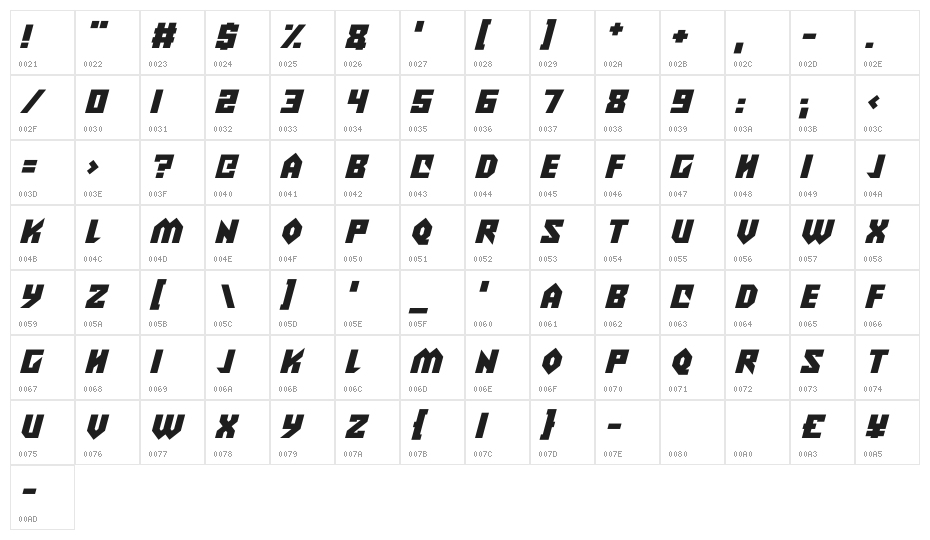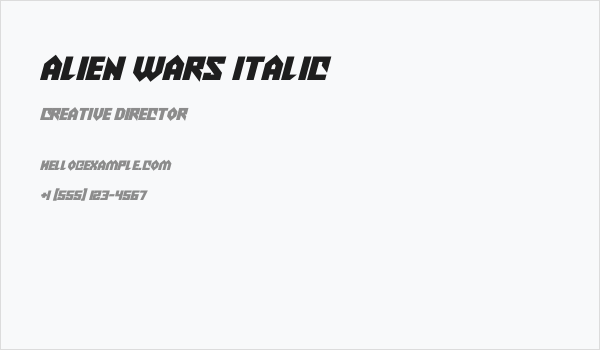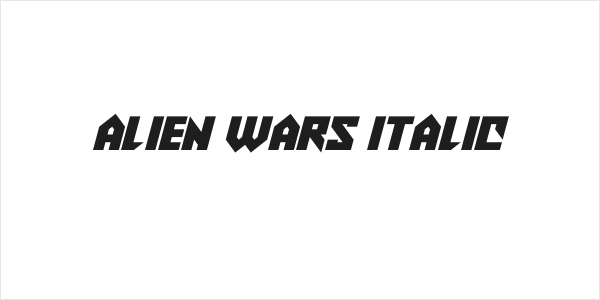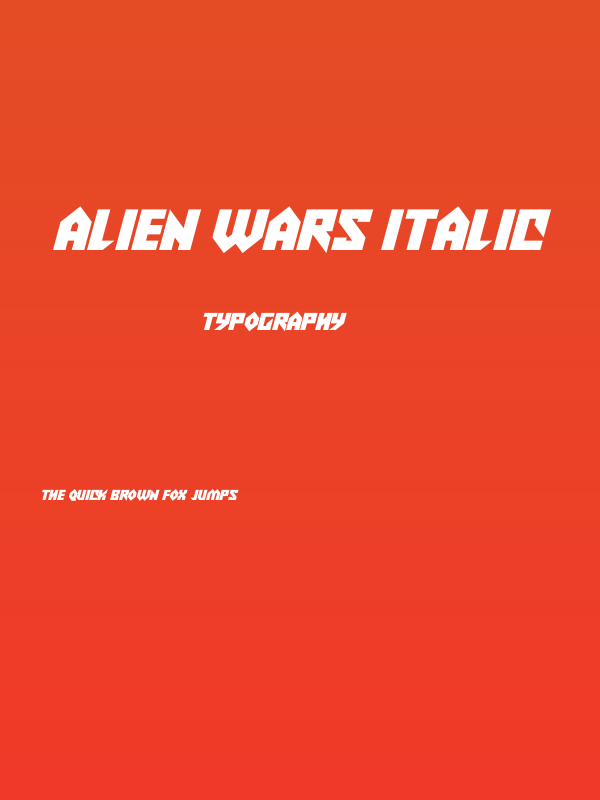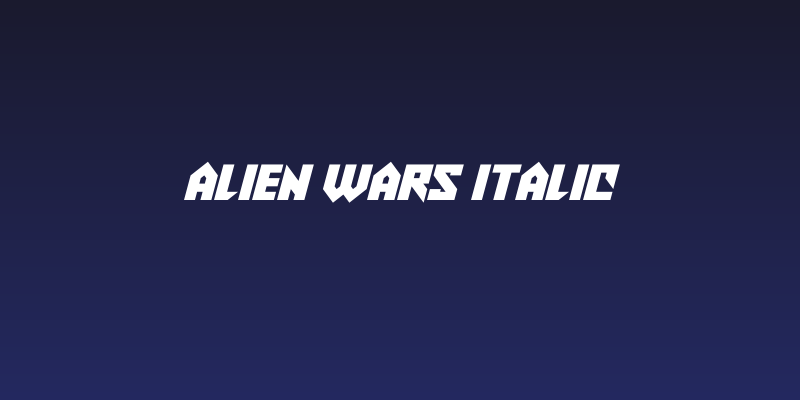
Alien Wars Italic Font
Alien Wars Italic Description
This font features a bold, futuristic design with sharp angles and a distinct italic slant, giving it a dynamic and aggressive appearance. The characters are tightly spaced, enhancing the compact and cohesive look. The uppercase and lowercase letters maintain a consistent style, with angular cuts and geometric shapes that suggest a sense of motion and speed. The numbers and special characters follow the same design principles, ensuring uniformity across all glyphs. This font is ideal for projects that require a modern, edgy aesthetic, such as video game titles, sci-fi movie posters, or tech-related branding.
| Proposed Projects | Ideal for video game titles, sci-fi movie posters, tech branding, and futuristic designs. |